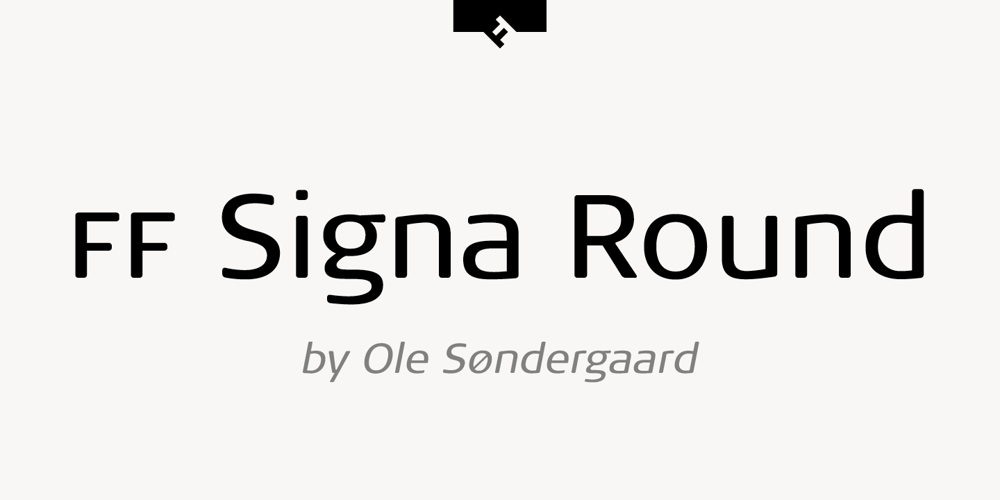
FF Signa Round Font Family was designed by Ole Berntsen Søndergaard and published by FontFont. FF Signa Round contains 42 styles and family package options. FF Signa Rounded is a natural complement to the rest of the FF Signa super family – and can stand on its own in a variety of print and on-screen applications. The design is Ole Søndergaard’s rounded branch in his FF Signa family three. In it, he took the distinctive shapes and proportions of FF Signa Sans and created a warm, inviting design for text and display copy. Like its parent design, FF Signa Round is not a humanistic sans, nor is it based on 19th-century grotesques. Its characters are minimalist interpretations of letterforms – distinctive, yet easy to read. Thanks to FF Signa Round’s large x-height, open counters and simple character shapes, the design does not overpower the message – and draws the reader in. At substantial sizes, especially in the bolder weights, the design communicates with amiable conviction. At text sizes, FF Signa Round remains inviting and legible. It can be used as a companion to the rest of the FF Signa family, providing depth of style and breadth of reach. The collection of designs can also be used on their own for brand, brochure, publication, and way-finding design in digital and hard copy environments. Like the rest of the FF Signa family, OpenType® Pro fonts of FF Signa Round provide for the automatic insertion of ligatures and alternate characters, and also offer an extended character set supporting over 100 languages, including most Central European and many Eastern European – in addition to Cyrillic and Greek.